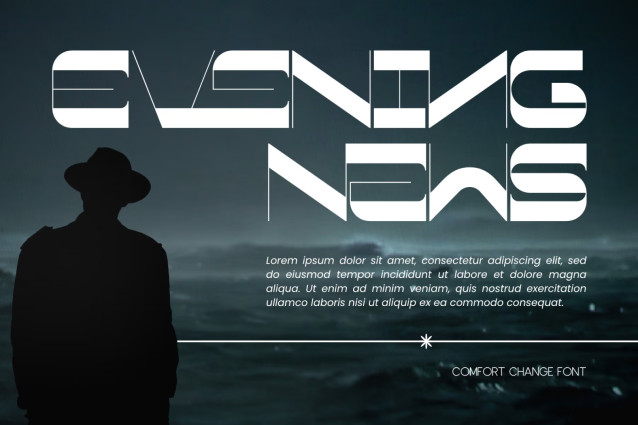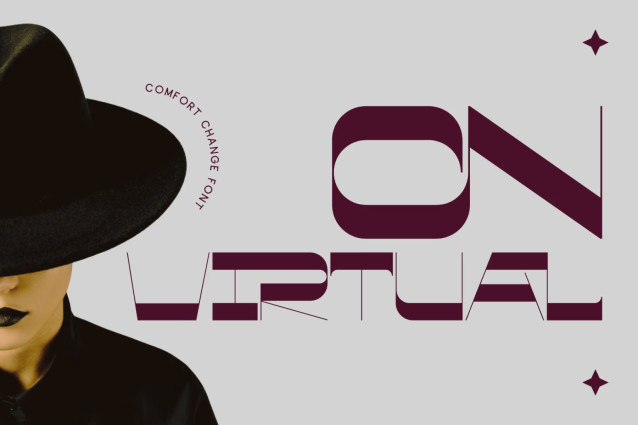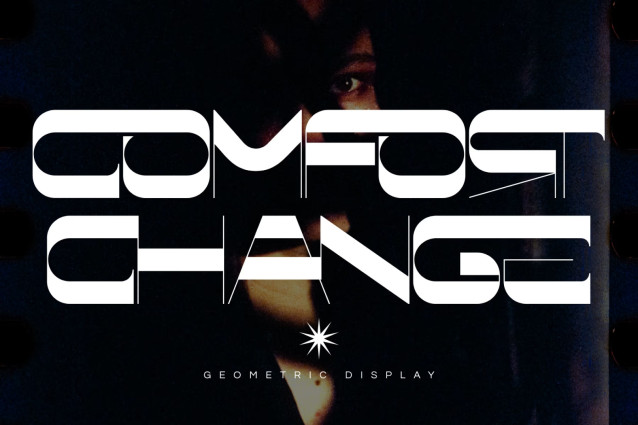
COMFORT CHANGE DEMO Font
COMFORT CHANGE – GEOMETRIC FONT is a bold futuristic display font that combines geometric precision with sleek sci-fi aesthetics. Built with strong modular shapes, rounded corners, and extended horizontal strokes, this typeface creates a striking visual presence that feels both modern and innovative. Inspired by futuristic interfaces, digital technology, and space-age design, COMFORT CHANGE features clean monoline-inspired forms and wide proportions that deliver exceptional readability while maintaining a distinctive high-tech personality. The smooth curves and subtle angular details give the font a refined yet powerful appearance.